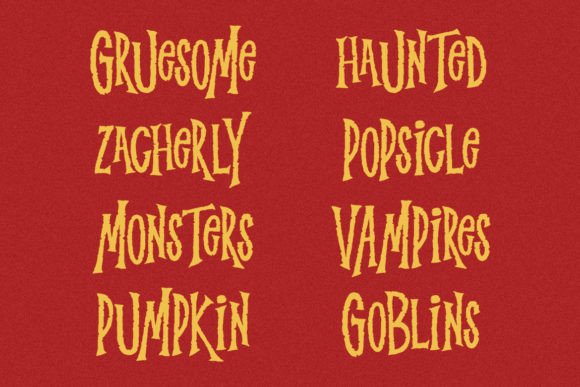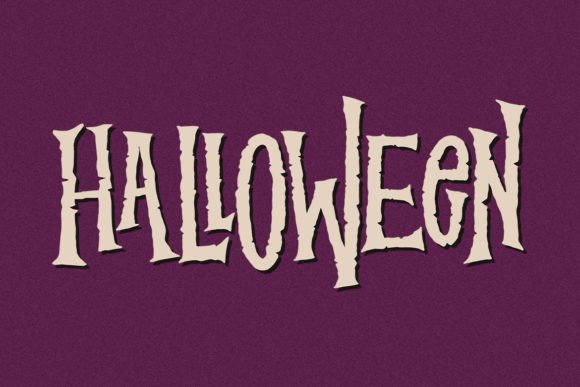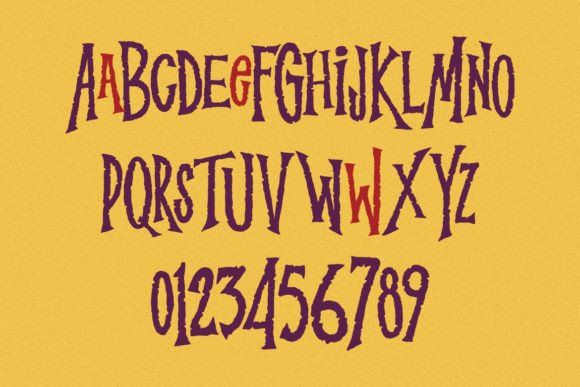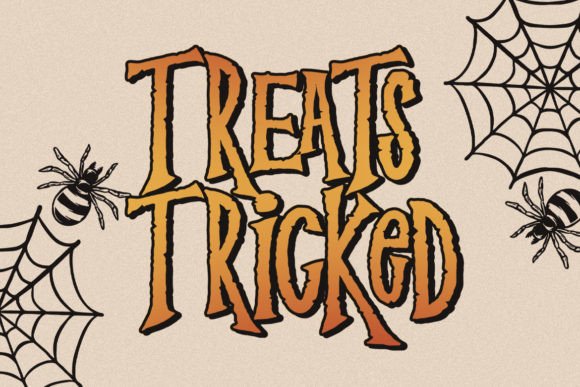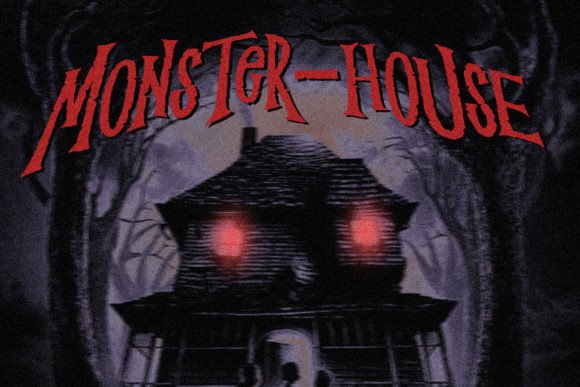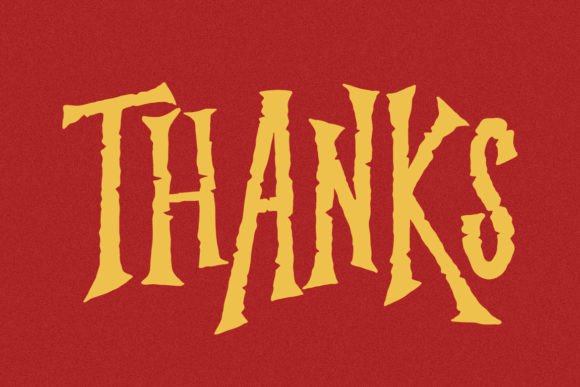
Ghosrain Font: The Spookiest Display Font for Your Halloween Projects
Are you looking for a font that will add a touch of spookiness to your Halloween-related projects? Look no further than the Ghosrain Font! This creepy and spooky looking display font is perfectly suitable for any Halloween-themed crafty idea, and is sure to make your designs stand out.
What is Ghosrain Font?
Ghosrain Font is a unique and eye-catching display font that is designed to evoke the spirit of Halloween. With its creepy and spooky appearance, this font is perfect for making Halloween posters, flyers, and other designs that require a touch of eeriness.
Key Features of Ghosrain Font
- Creepy and Spooky Design: Ghosrain Font features a creepy and spooky design that is sure to send chills down the spine of anyone who sees it.
- Perfect for Halloween Projects: This font is specifically designed for Halloween-related projects, making it the perfect choice for designers and crafters who want to create spooky and eye-catching designs.
- High-Quality Design: Ghosrain Font features a high-quality design that is sure to make your designs stand out.
- Easily Readable: Despite its creepy appearance, Ghosrain Font is easily readable, making it perfect for use in posters, flyers, and other designs where readability is important.
Uses of Ghosrain Font
Ghosrain Font is a versatile font that can be used in a variety of ways, including:
- Halloween Posters: Create eye-catching Halloween posters that will grab the attention of anyone who sees them.
- Flyers: Design spooky flyers that will advertise your Halloween event or promotion.
- Social Media Graphics: Use Ghosrain Font to create spooky social media graphics that will help you stand out from the crowd.
- Crafting Projects: Use Ghosrain Font to add a touch of spookiness to your crafting projects, such as Halloween-themed cards, gift tags, and more.
Why Choose Ghosrain Font?
There are many reasons why you should choose Ghosrain Font for your Halloween-related projects. Here are just a few:
- Unique Design: Ghosrain Font features a unique and eye-catching design that is sure to make your designs stand out.
- High-Quality: Ghosrain Font is a high-quality font that is designed to produce crisp and clear results.
Tips for Using Ghosrain Font
Here are a few tips for using Ghosrain Font in your designs:
- Use it Sparingly: Ghosrain Font is a bold font, so use it sparingly to avoid overwhelming your design.
- Pair it with Other Fonts: Pair Ghosrain Font with other fonts to create a unique and eye-catching design.
Ghosrain Font is a creepy and spooky looking display font that is perfectly suitable for any Halloween-related project or crafty idea. With its unique design, high-quality construction, and ease of use, this font is sure to become a favorite among designers and crafters. So why wait? Download Ghosrain Font today and start creating spooky and eye-catching designs that will leave a lasting impression!